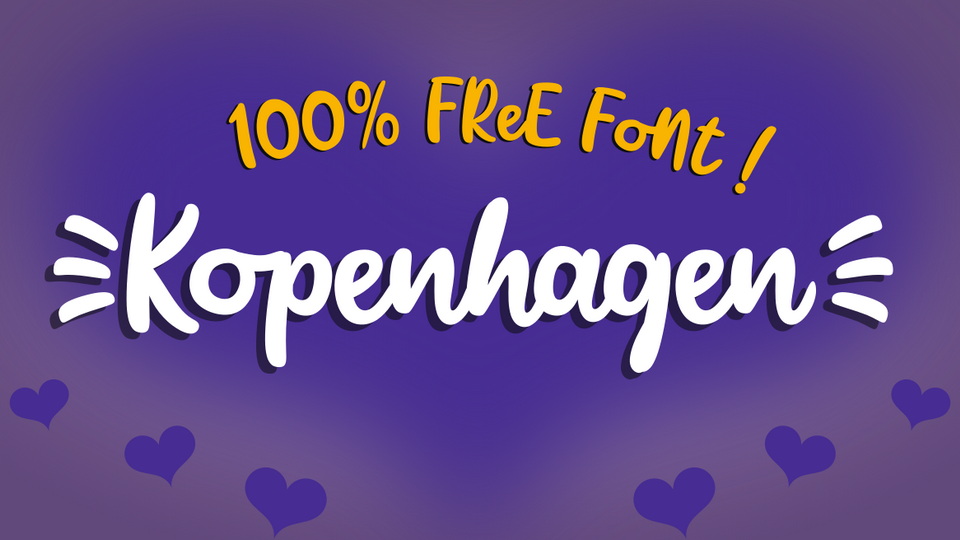
Feb 8, 2025Script & HandwrittenKopenhagen Font Kopenhagen is a hand drawn marker pen font with a natural and soft flow. It works great for any craft project, printing, posters, notes, quotes and more. Font DetailsDesigned by: Joe LetterWebsiteLicense: Free for commercial use Download Kopenhagen FontFile size: 22.72 KBCreated: February 16, 2025Updated: February 16, 2025 Download Explore similar fonts Oldport Script Font Kaflina Oblique Font Casa Lienta Font Western Airo Font Lucy The Cat Font Boprura Font Duo # Casual# Handwriting More fonts by Joe LetterReadiculous FontRandom Boys FontComic Shark FontBlueberry Cupcake FontCherry Cocktail FontRain Shaman FontDummy Brush FontCoconut House Font